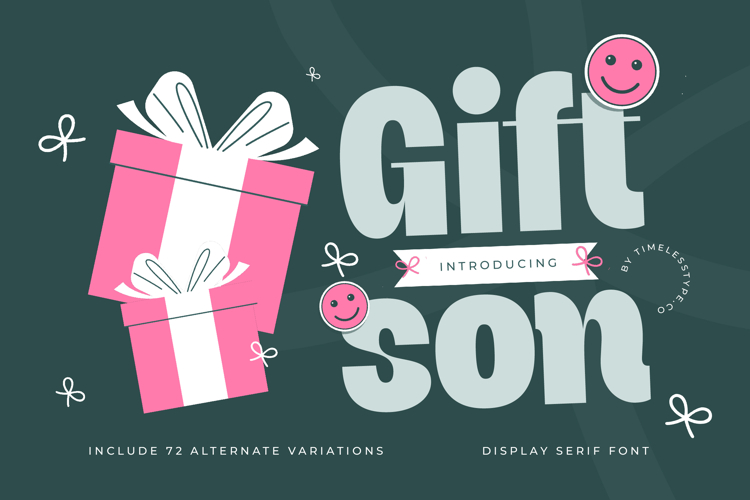
Giftson - Display Serif Font
The Giftson Typeface is a playful display serif font designed with fun, creativity, and bold charm. Featuring 72 alternate variations, this typeface gives designers the flexibility to craft engaging and unique typographic designs. Its chunky, rounded letterforms combined with quirky alternates create a cheerful and eye-catching aesthetic, making it ideal for projects that need a friendly, vibrant, and modern personality. Giftson is perfect for designs centered around celebration, lifestyle, and entertainment.